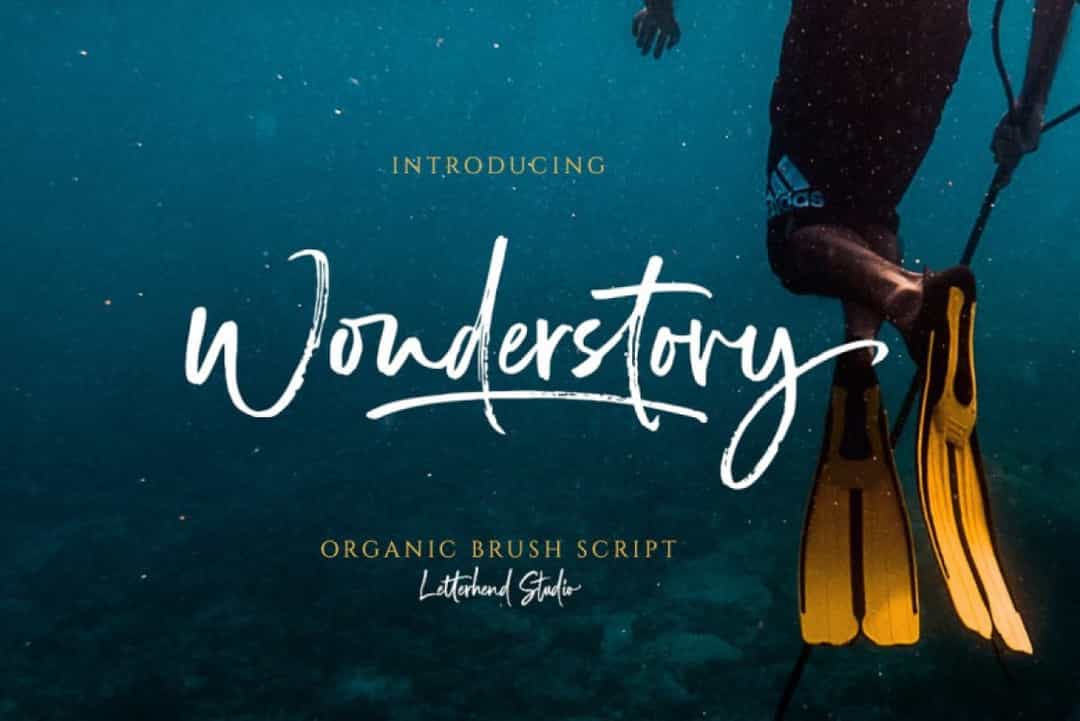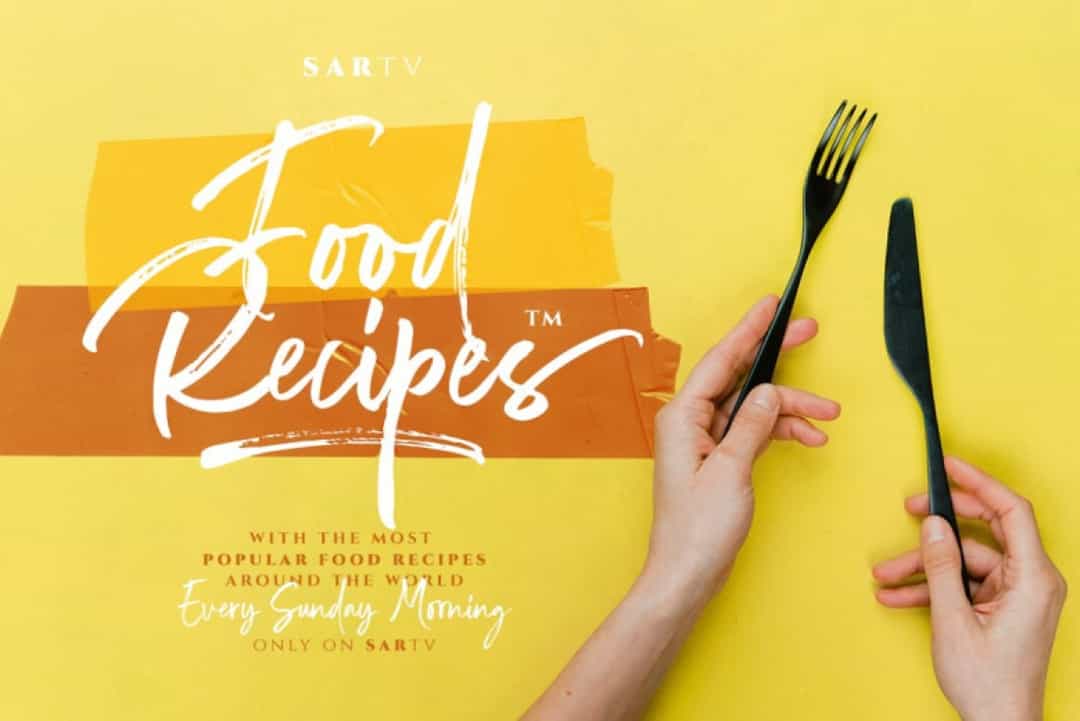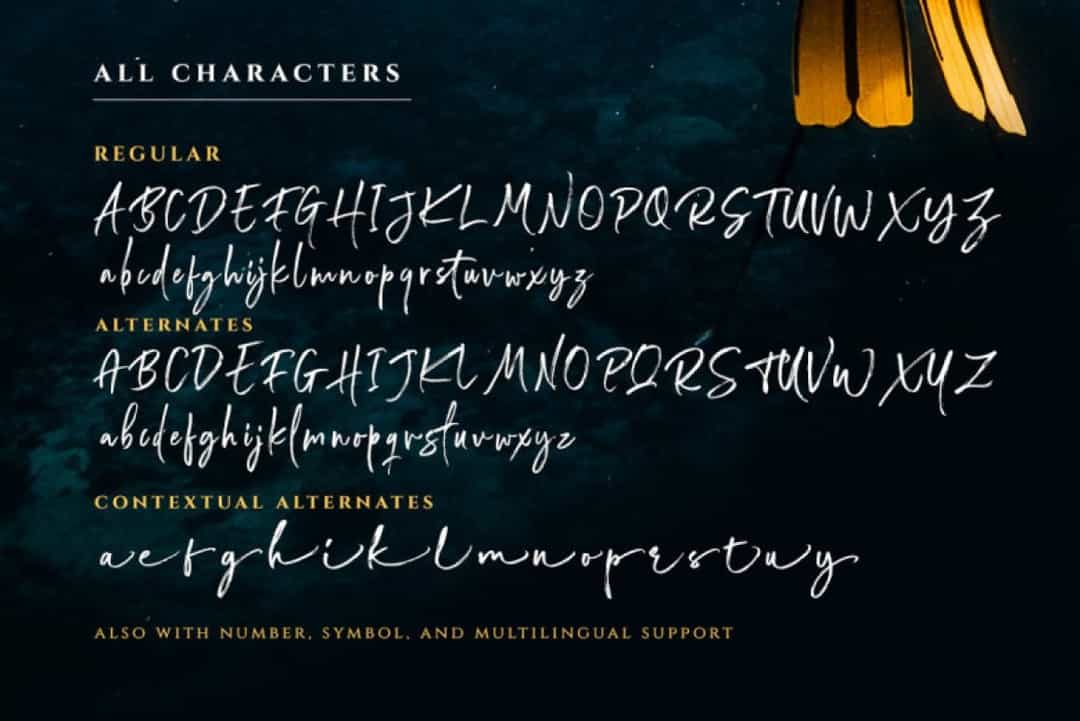
Wonderstory is a natural Brush script typeface with its soft brush texture giving an authentic handwritten feel and look. Perfect for headlines, logotypes invitations apparel packaging branding advertising etc.